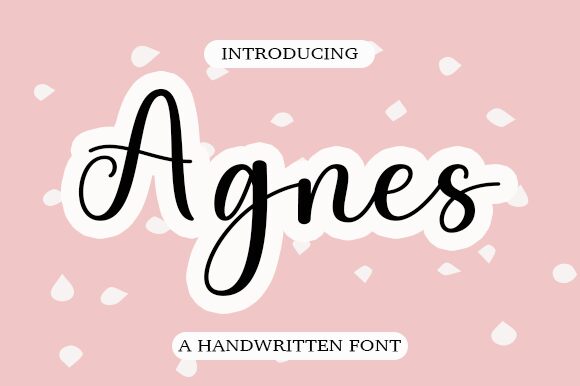
Agnes is a stunning calligraphy font designed by Wahyu Setiyawan. Its light weight creates a delicate and elegant feel, perfect for wedding invitations, greeting cards, and other formal events. The flowing lines of this font give it a sophisticated look that can add a touch of glamour to your designs. With its graceful curves, Agnes is ideal for projects that require a touch of feminine charm.
Agnes
Wahyu Setiyawan